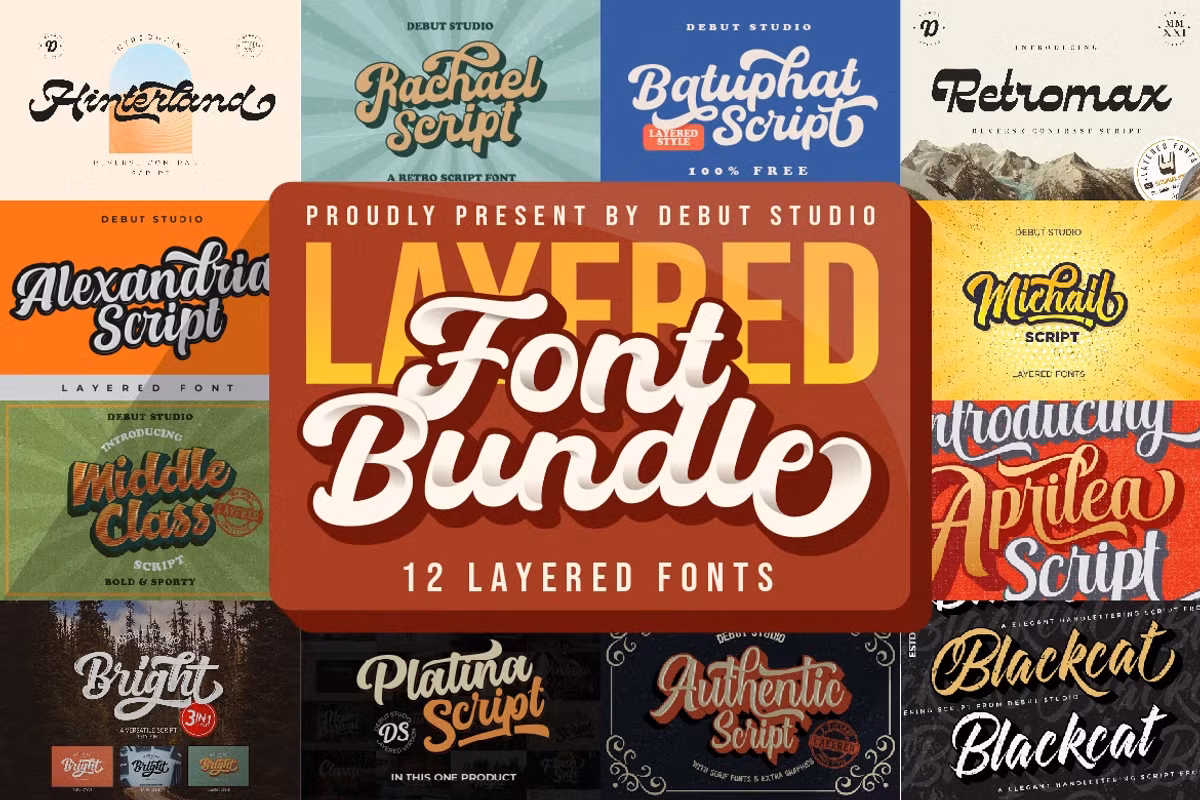
You must purchase this font for commercial use. However, you can download THE LAYERED FONT BUNDLE Free Download for testing purposes. The Layered Font Bundle is a collection of versatile, multi-layered fonts designed to give you endless creative possibilities in your design projects. Whether you're working on logos, posters, vintage packaging, or modern branding, this bundle provides a range of font styles that allow you to create dynamic, eye-catching designs.
The layered font system lets you stack different layers to create unique typography effects, providing depth and texture with minimal effort. Perfect for both bold and subtle design needs, this bundle includes various font weights, styles, and decorative elements that work together to bring dimension and flair to your projects.